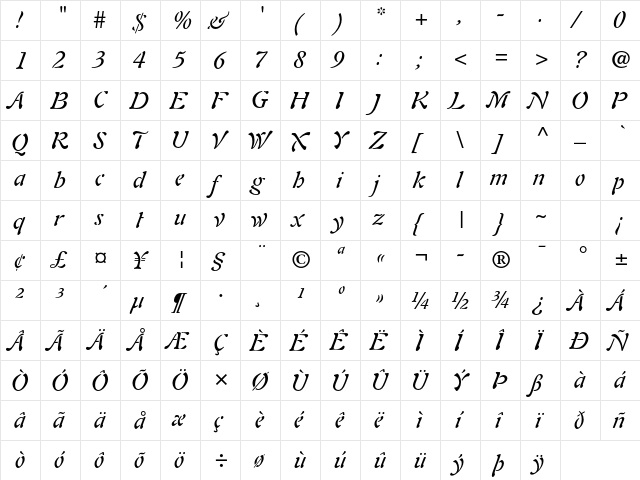
Auriol LT Std Italic Font Preview
| Designer | Georges Auriol |
Design Context for Auriol LT Std Typeface
Auriol LT Std takes a measured approach to typography — its balanced proportions and neutral character make it a reliable workhorse for both digital and print work. The dynamic lean of this cut emphasises speed and emphasis in any layout. The delicate stroke weight brings airiness and refinement to layouts.
Pro Tip: Try Auriol LT Std for annotation and caption copy alongside an upright companion — the contrast in angle creates a dynamic but ordered typographic system.